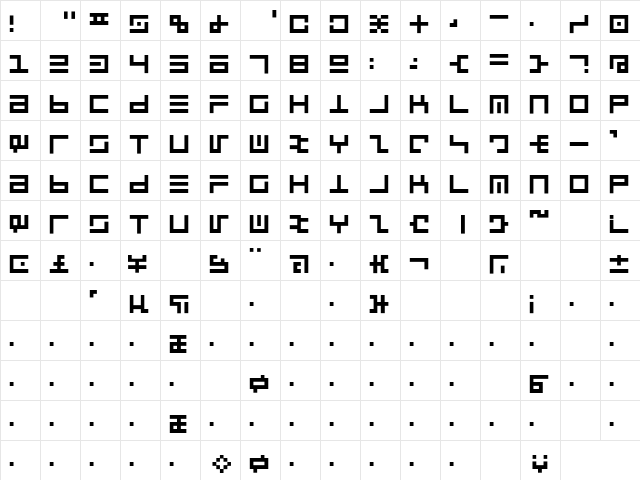
Rsultralin Regular Free Font
Rsultralin Regular
Complete Rsultralin Regular glyph index. Displaying only characters natively supported by Rsultralin Regular font.
Design Context for Rsultralin
Rsultralin is a composed and adaptable typeface that performs quietly and consistently across a wide range of design contexts.